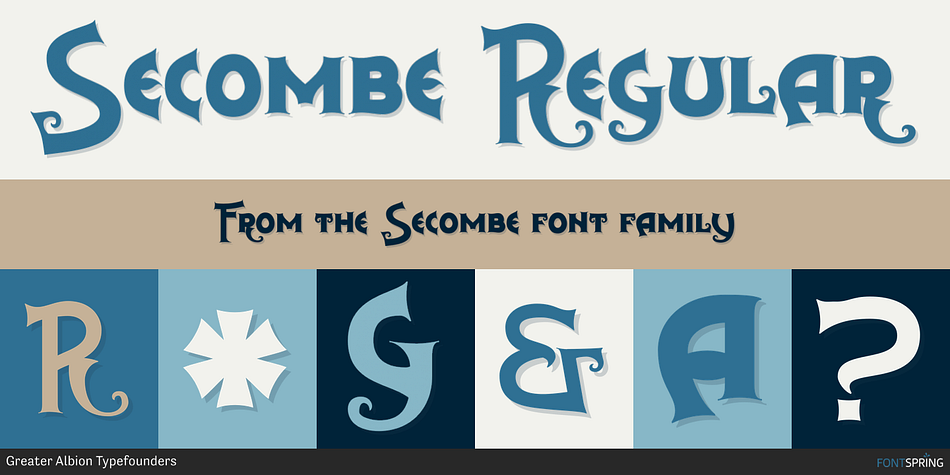
Secombe Regular
Secombe is a art nouveau font family. This typeface has two styles and was published by Greater Albion Typefounders.
Secombe is a lively fun family of typefaces in the spirit of the turn of the last century.
Secombe is a lively fun family of typefaces in the spirit of the turn of the last century.  It’s a boisterous fun design, named in honour of the late Harry Secombe (or if you prefer, Neddy Seagoon).  Secome is a family of two ‘small capitals’ display faces, offered in a regular solid form and the ‘Grande’ form, engraved and shadowed.  Ideal for posters, book covers and any other design work where a feel of the 1900s is needed.